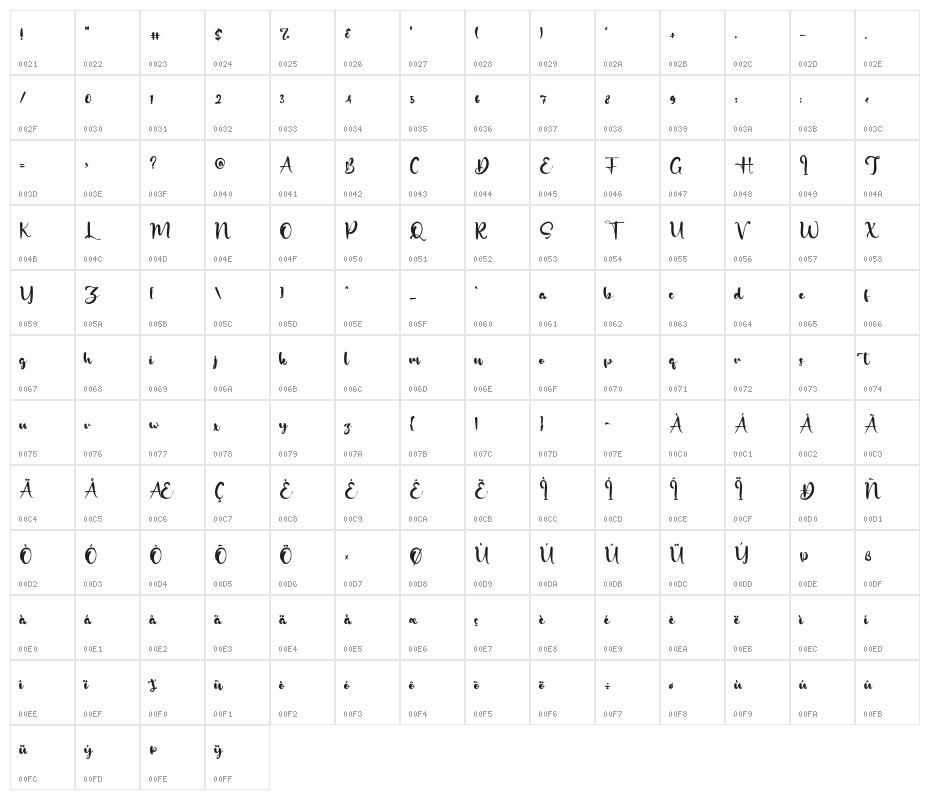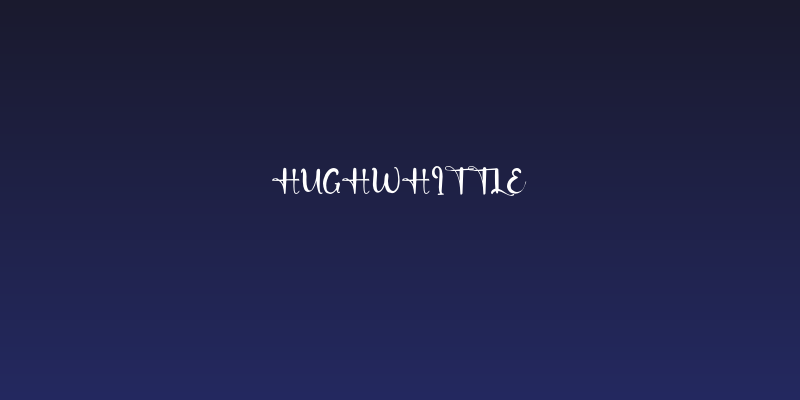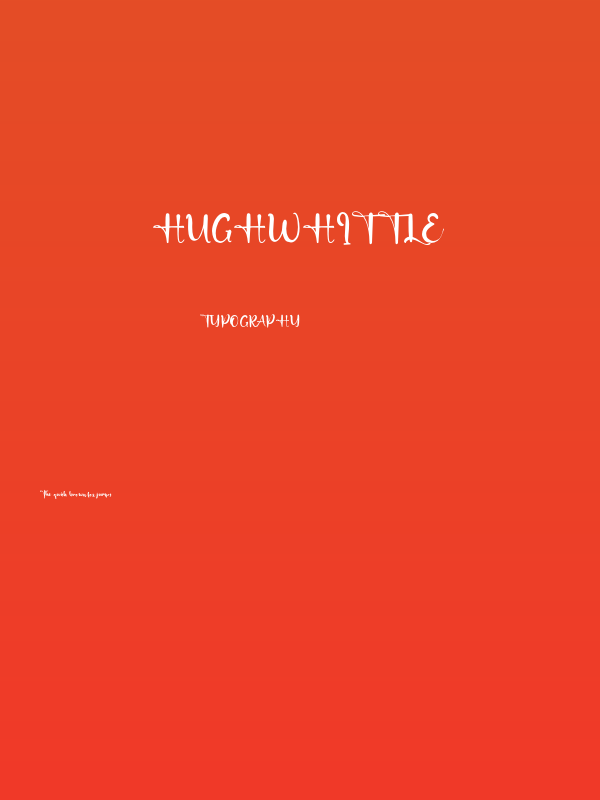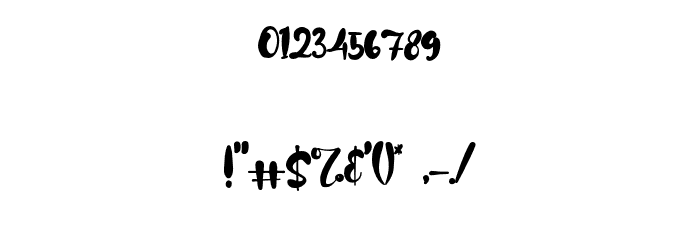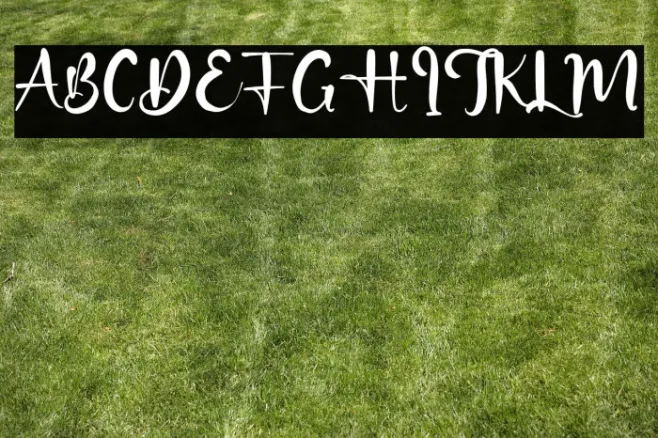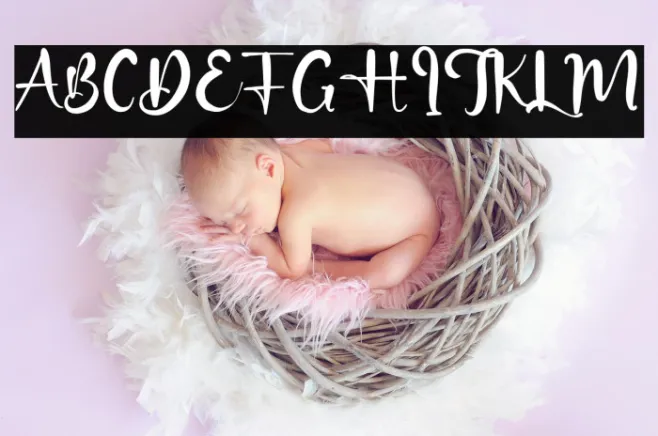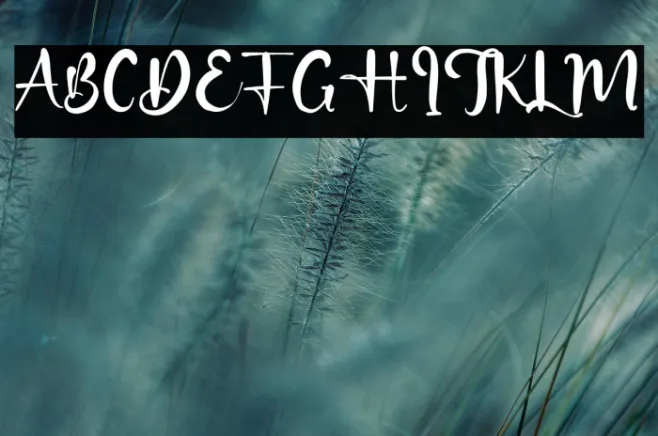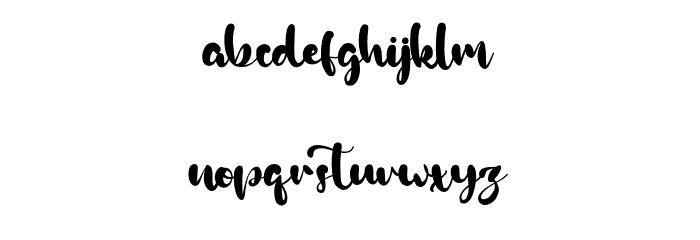
HughWhittle Font
HughWhittle Description
This font features a playful and artistic script style, characterized by its flowing, cursive letterforms. The uppercase letters exhibit a whimsical flair with exaggerated loops and curves, while the lowercase letters maintain a consistent, fluid motion. The numerals and special characters are designed to match the overall aesthetic, adding a touch of elegance and creativity. The font's strokes vary in thickness, providing a medium contrast that enhances its dynamic appearance. This font is ideal for projects that require a personal, handcrafted touch, such as invitations, greeting cards, or branding materials.
| Proposed Projects | Ideal for invitations, greeting cards, branding materials, and creative projects. |